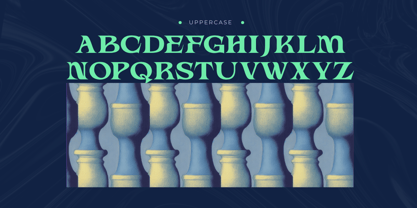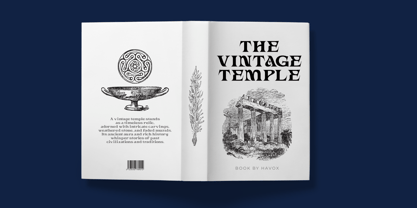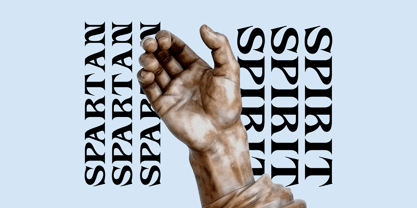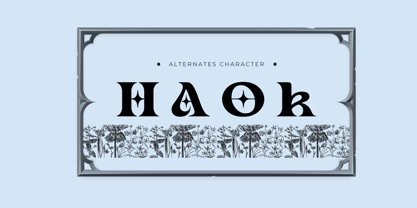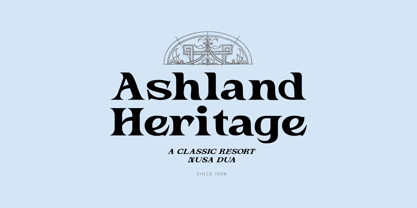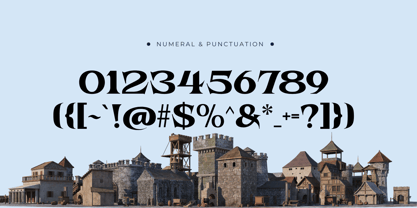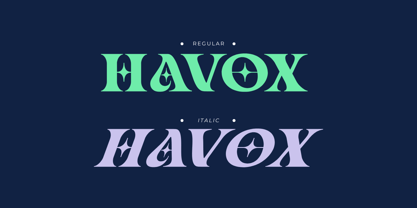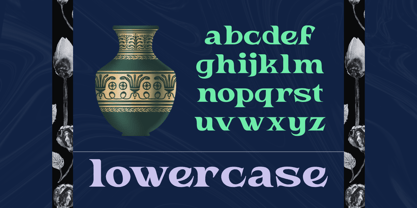
Havox Vintage
Havox Vintage is a vintage serif font that embodies timeless elegance and classic charm. With its bold curves and refined details, Havox brings a touch of nostalgia, perfect for retro-inspired designs. Ideal for logos, headlines, posters, and branding, this typeface blends traditional serif strength with a stylish vintage twist. Let Havox elevate your project with a sense of heritage and sophistication.